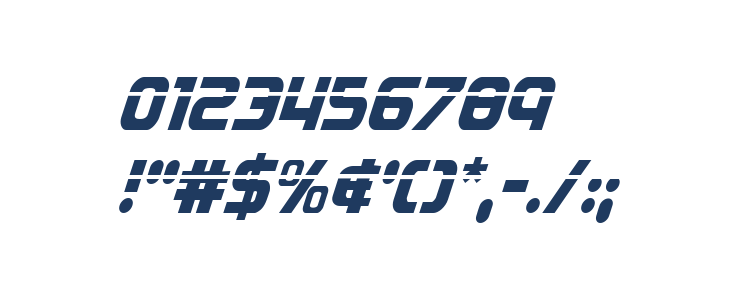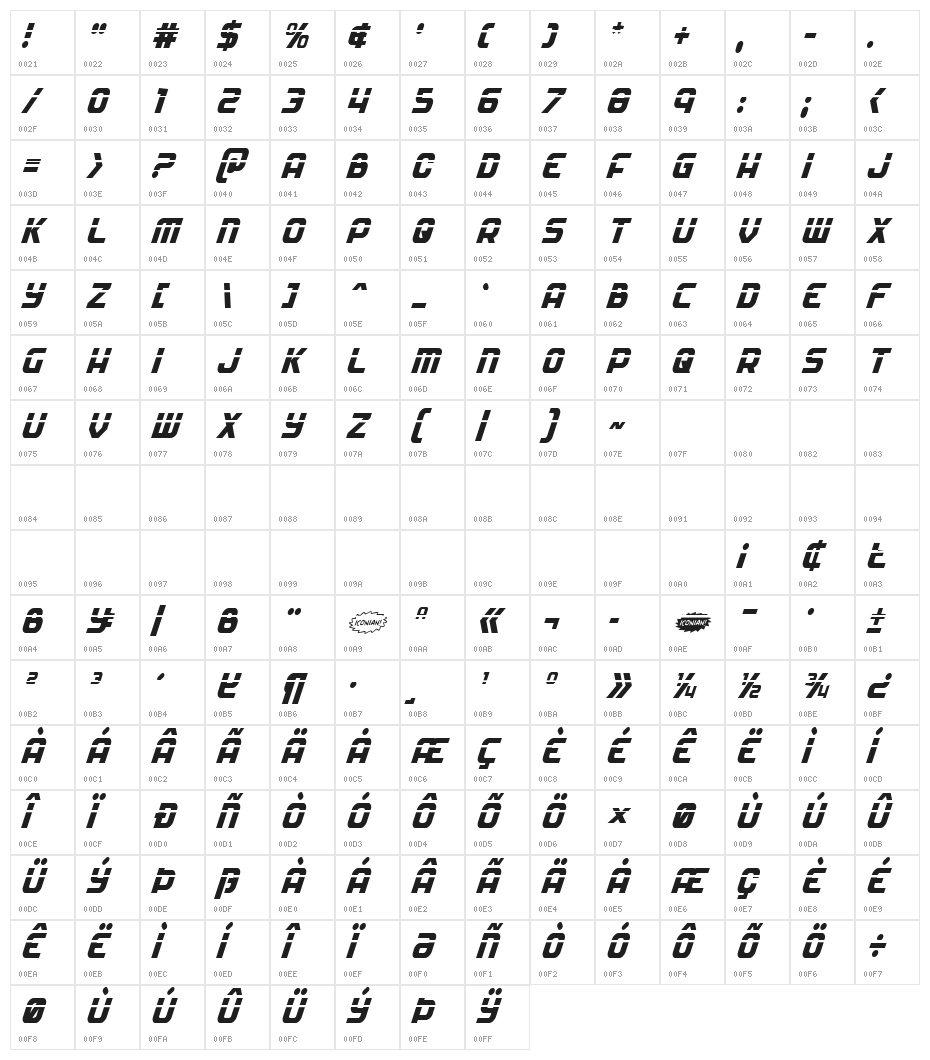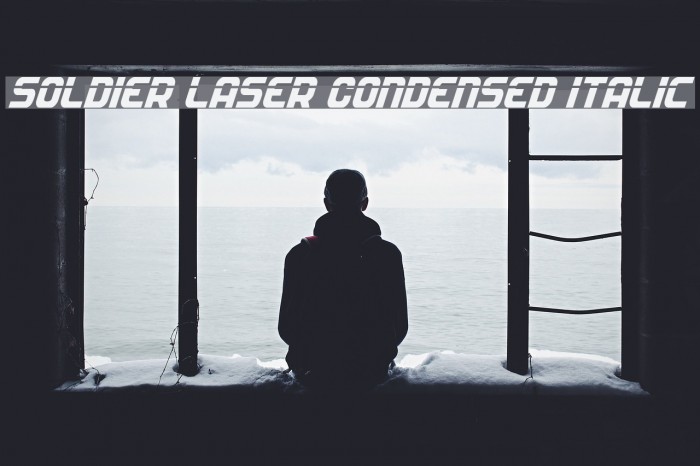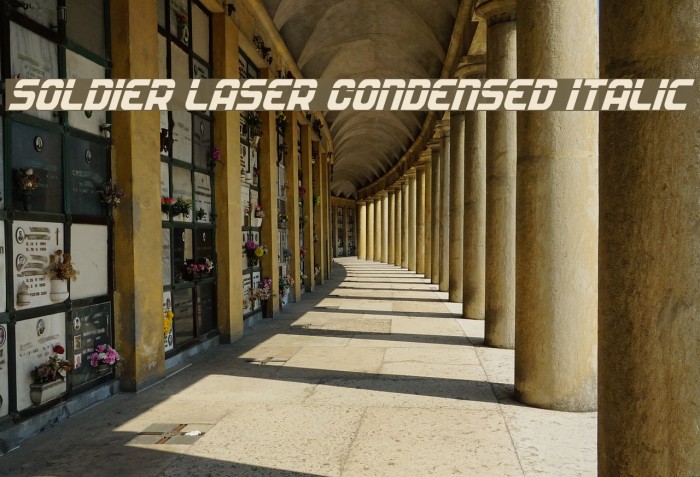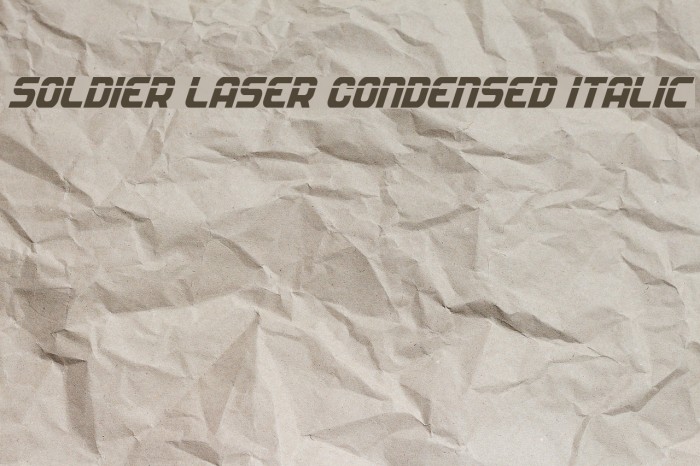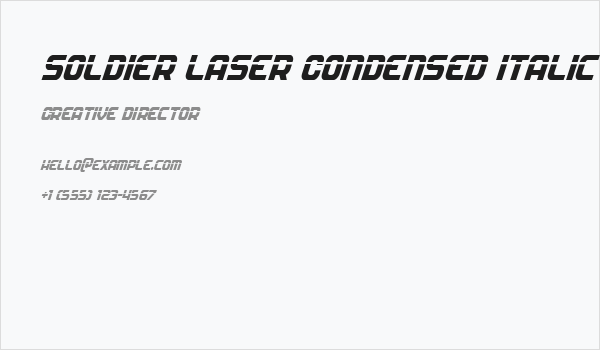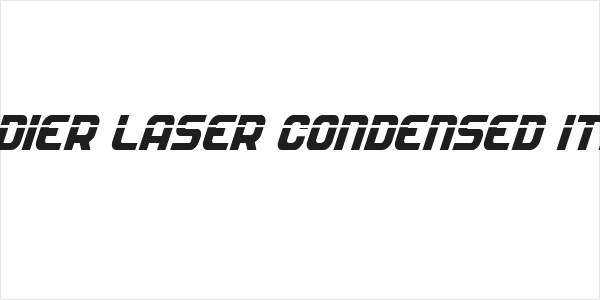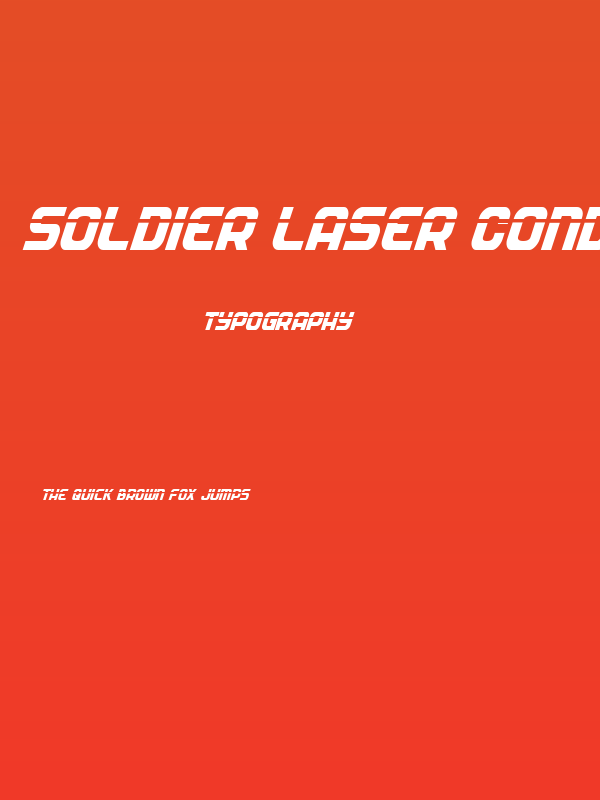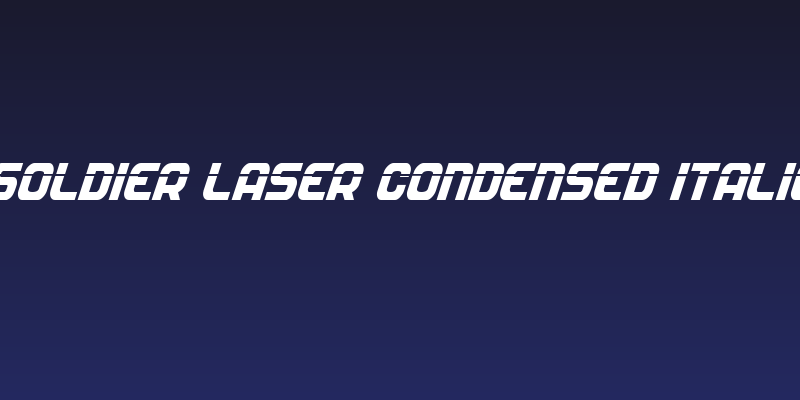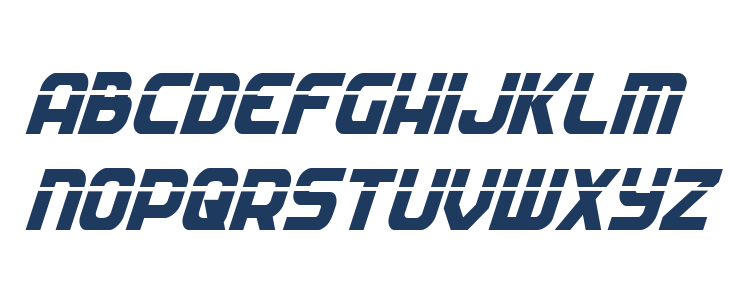
Soldier Laser Condensed Italic Font
Soldier Laser Condensed Italic Description
This font features a bold, futuristic design with a condensed and italicized structure. The characters are sharply angled, giving a dynamic and energetic feel. The uppercase letters are uniform in height, while the lowercase letters maintain a consistent style, enhancing readability. The numbers are bold and clear, matching the overall aesthetic. Special characters are distinct and well-integrated, making them suitable for various design needs. The font's condensed nature allows for efficient use of space, making it ideal for headlines or impactful text displays.
| Proposed Projects | Ideal for sci-fi themed projects, gaming graphics, technology branding, and dynamic posters. |